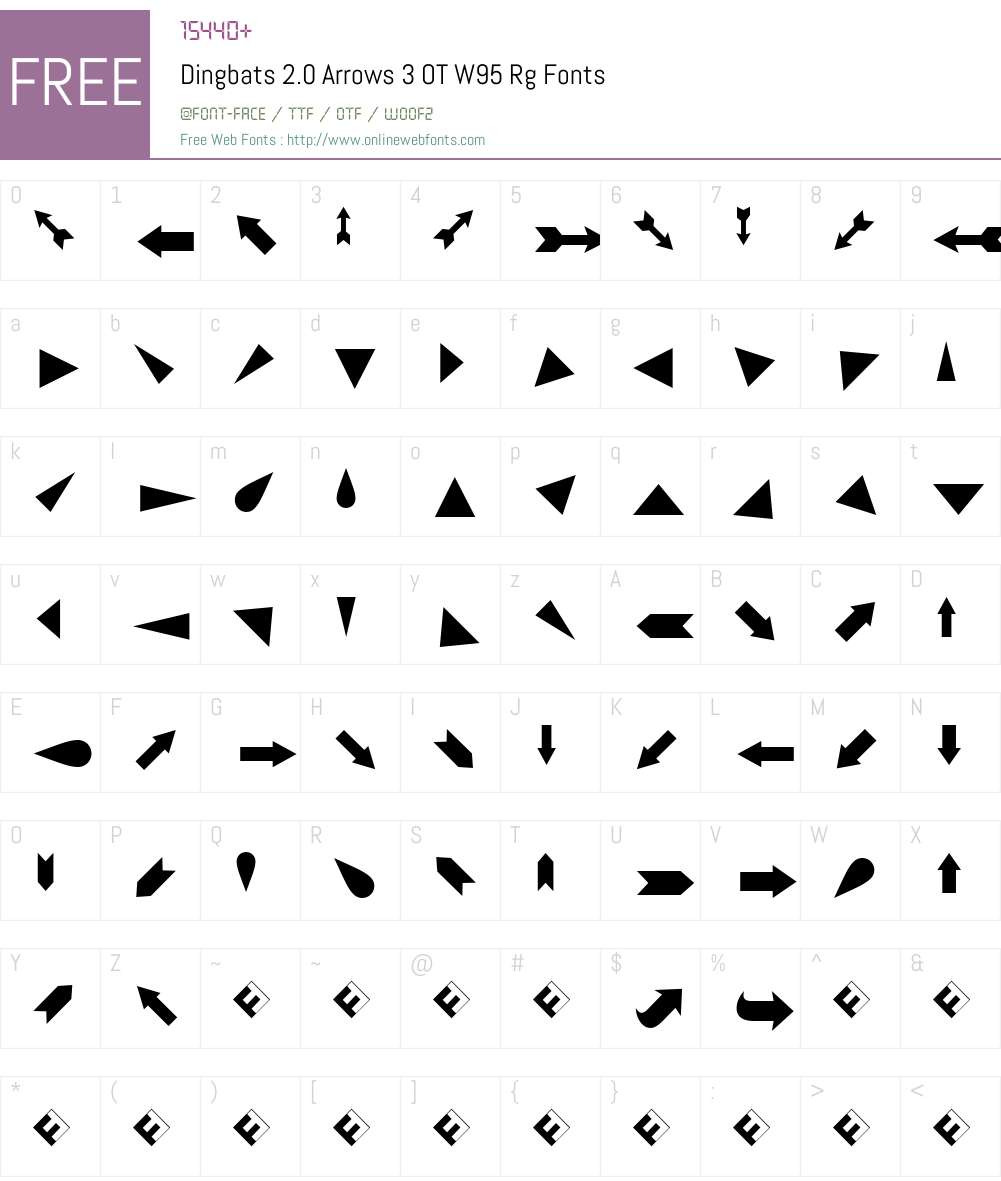
Cute Handmade Swirls Dingbat Font Angie Makes. Archive of freely downloadable fonts. Platform supported unicode macintosh microsoft. Dingbats are fonts that have symbols or icons instead of traditional letters. Anyone from the 90s would remember wingdings, the most iconic dingbat font made by microsoft. To add a font to word, download and install the font in windows, where it will become available to all office applications. Fonts come as files, and there are many sites on the internet where you can download free fonts, such as dafont. Below you can see preview popular dingbats fonts. Download 10,000 fonts with one click for $19.95. Browse by alphabetical listing, by style, by author or by popularity. You can download any dingbats font for free in truetype (.ttf) and opentype (.otf) format. Licensed for personal and commercial use. Introducing mandings hand drawn dingbat font. Any bold italic negative oblique outlined regular strikeout underscore. The best selection of dingbats fonts for windows and macintosh. You can also import font files from a cd, a dvd.
In my tests, i found that the otherwise good word processor mellel has the same failing as microsoft word.
40 Free Highly Functional Dingbat Fonts Inspirationfeed. You can also import font files from a cd, a dvd. Platform supported unicode macintosh microsoft. Download 10,000 fonts with one click for $19.95. Introducing mandings hand drawn dingbat font. The best selection of dingbats fonts for windows and macintosh. To add a font to word, download and install the font in windows, where it will become available to all office applications. Dingbats are fonts that have symbols or icons instead of traditional letters. Archive of freely downloadable fonts. Browse by alphabetical listing, by style, by author or by popularity. Anyone from the 90s would remember wingdings, the most iconic dingbat font made by microsoft. Licensed for personal and commercial use. Fonts come as files, and there are many sites on the internet where you can download free fonts, such as dafont. You can download any dingbats font for free in truetype (.ttf) and opentype (.otf) format. Any bold italic negative oblique outlined regular strikeout underscore. Below you can see preview popular dingbats fonts.
This free fonts collection also offers useful content and a huge collection of truetype face and opentype font families categorized in alphabetical order.
But when you look at the variety of fonts available, you'll realize they can play a significant role in your designs. Therefore, the word font in ms word often means a whole family of display features such as the typeface, color, weight, and/or size. Sending the font separately or sending pdf is not an option, because in business world you send contracts (any documents) in *.docx format in order to let parties. Well the full document already has aerial font but for some reason it doesn't display hindi characters when you open it. I recently noticed that microsoft word and other applications show zapfdingbats in the font list, and it seems to be identical to zapf dingbats was included in the postscript ii printer font set. Word does not embed fonts. Anyone from the 90s would remember wingdings, the most iconic dingbat font made by microsoft. Collection of most popular free to download fonts for windows and mac. Download 10,000 fonts with one click for $19.95. I have tried to google for the it but i didn't found any instruction which may solve this.